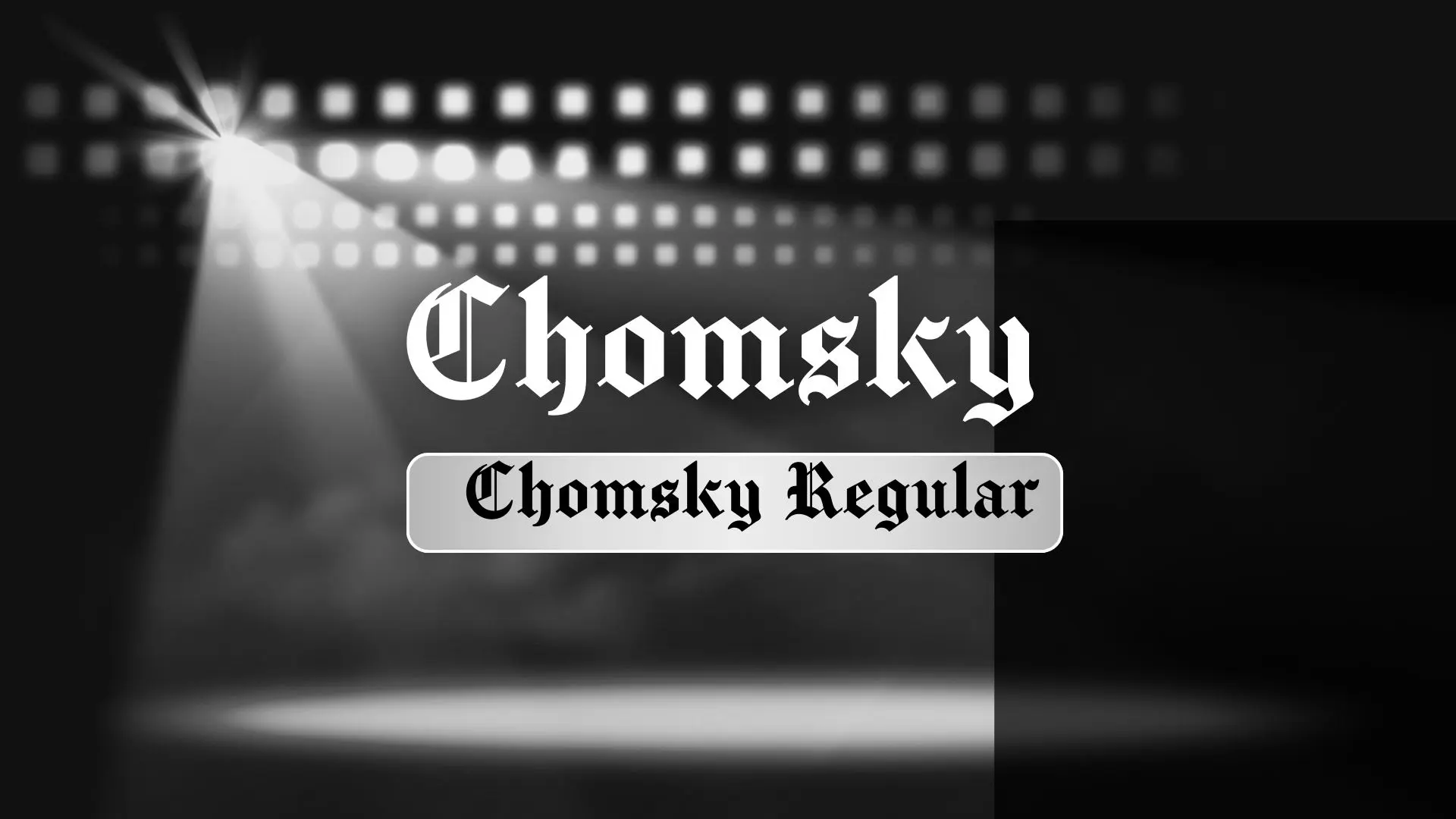
The font Chomsky Regular, designed by Fredrick Brennan, falls under the Display category & Chomsky font family. Its smooth, flowing letterforms make it a versatile choice for projects that require both elegance and readability. Chomsky is particularly well-suited for Branding, Logos, Certificates, Formal Documents, Newspaper, magazine mastheads and Decorative headlines. With its balance of simplicity and decorative appeal, this font brings a polished touch to both personal and professional designs.